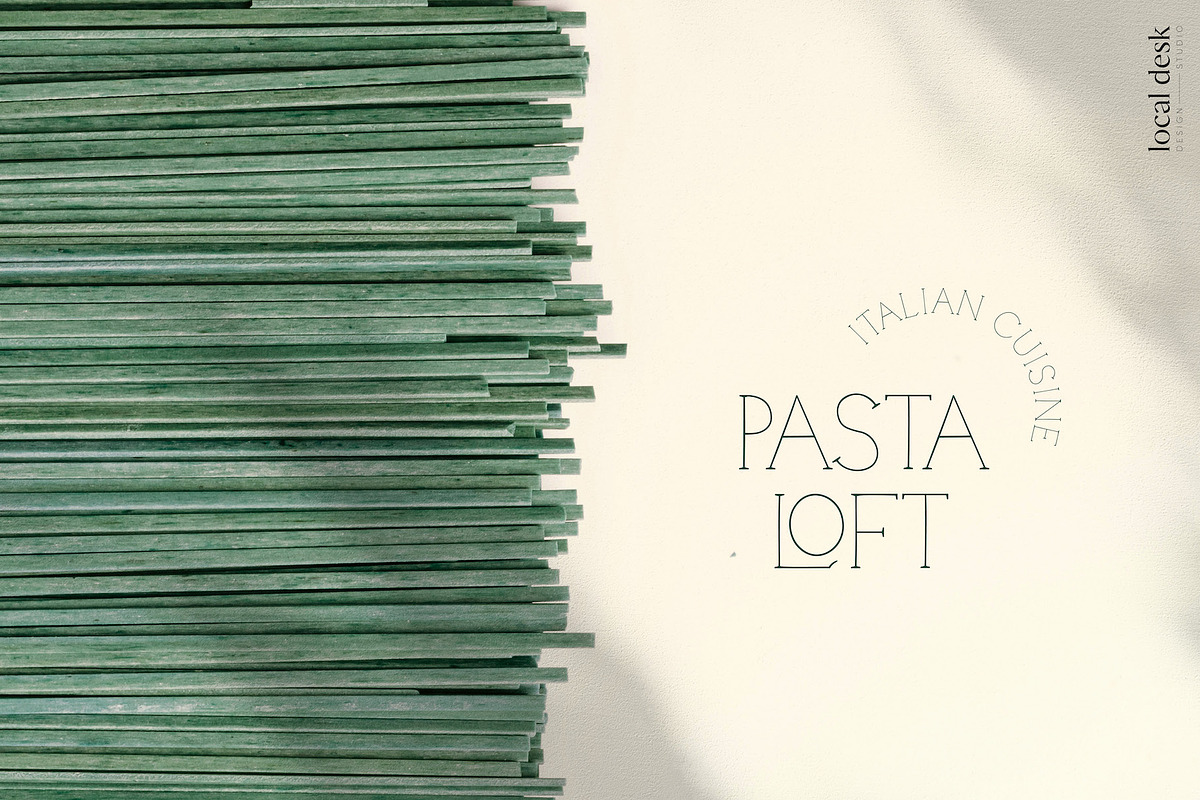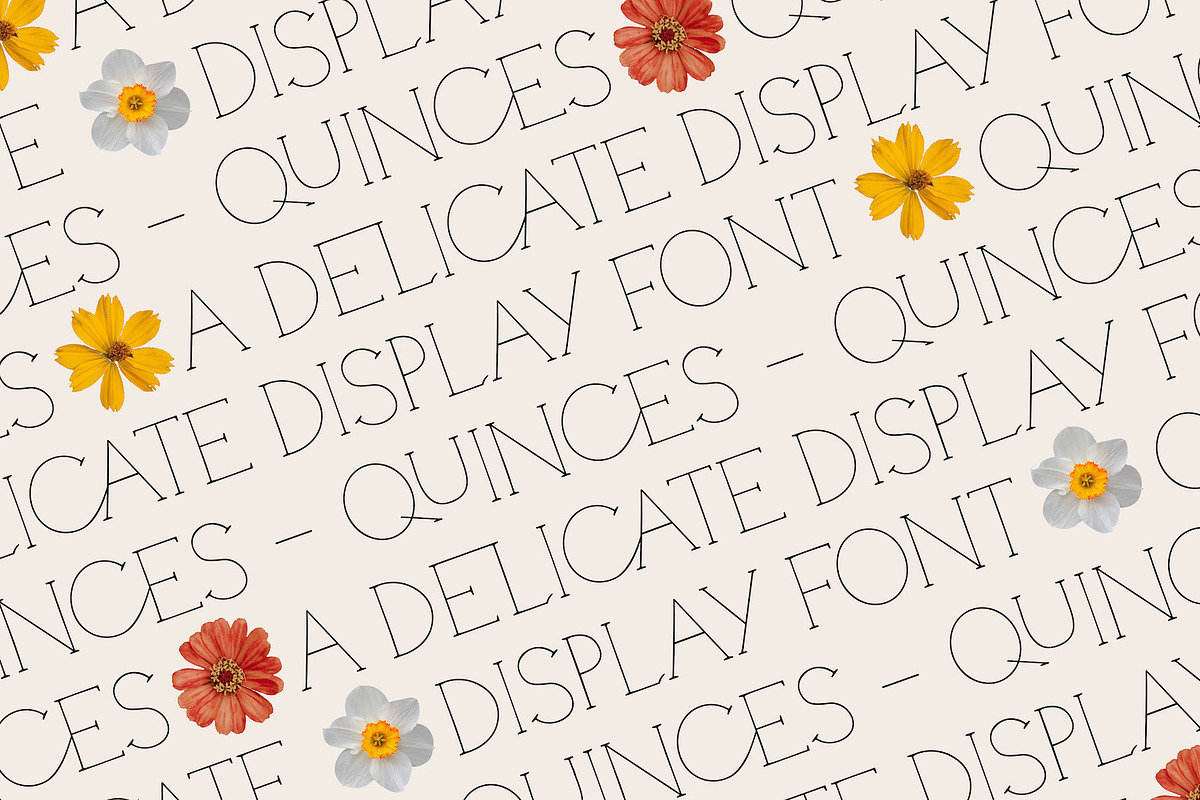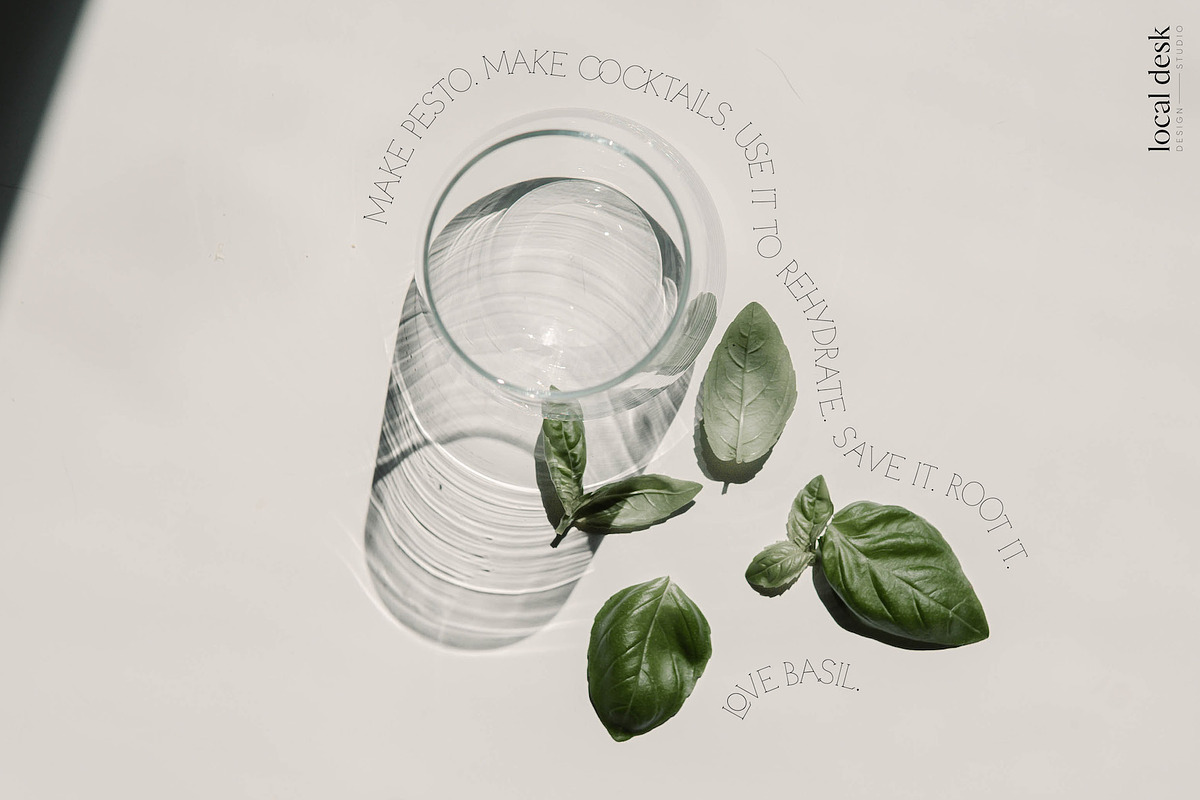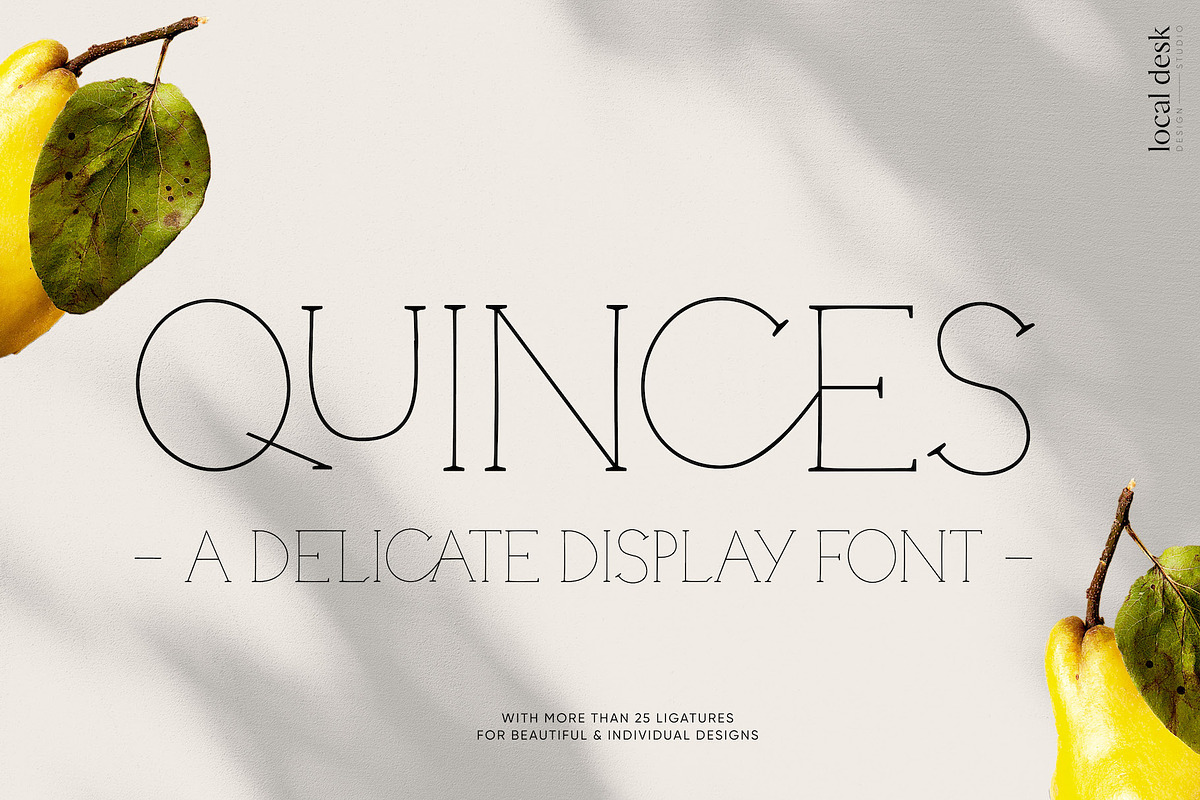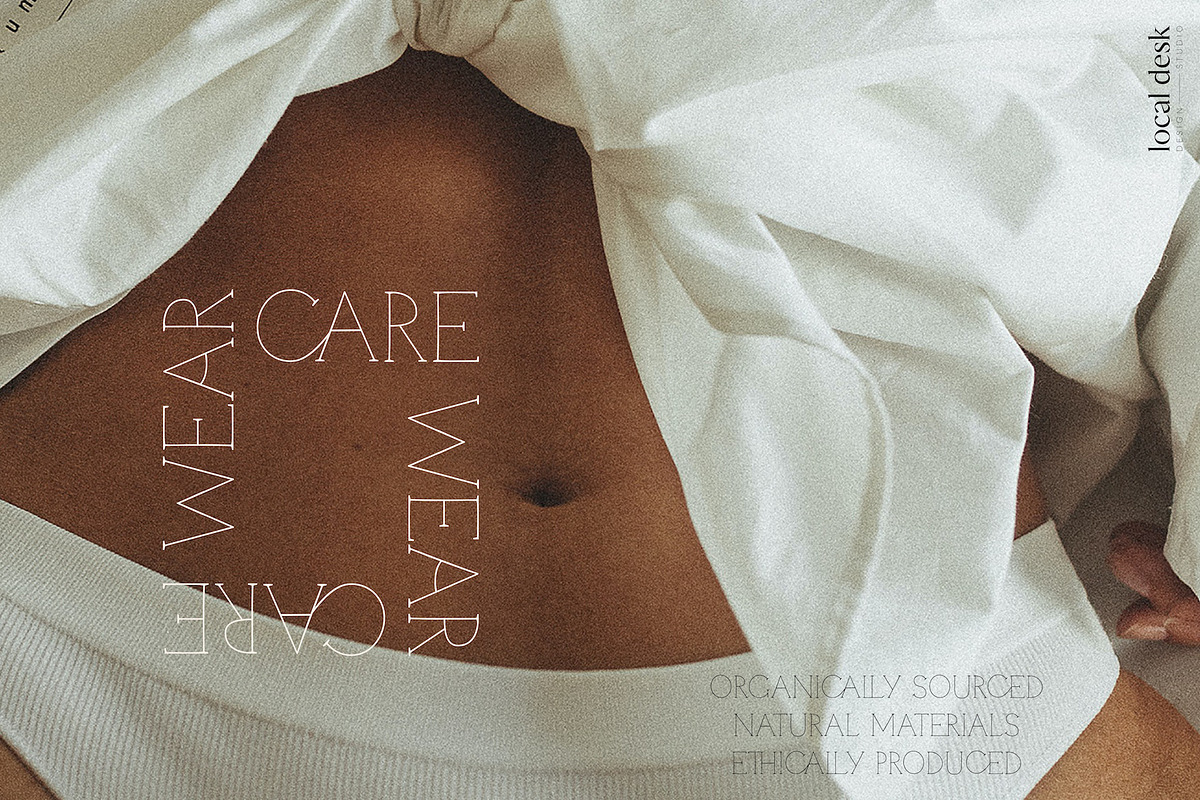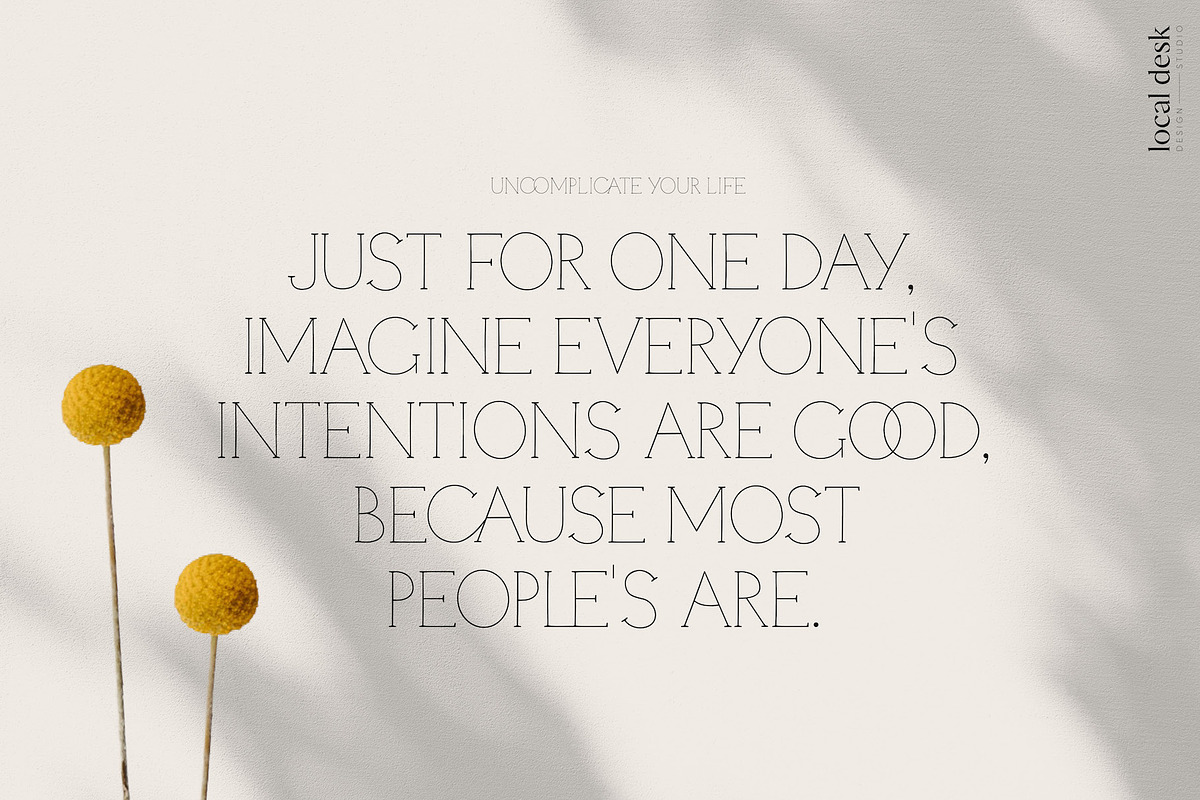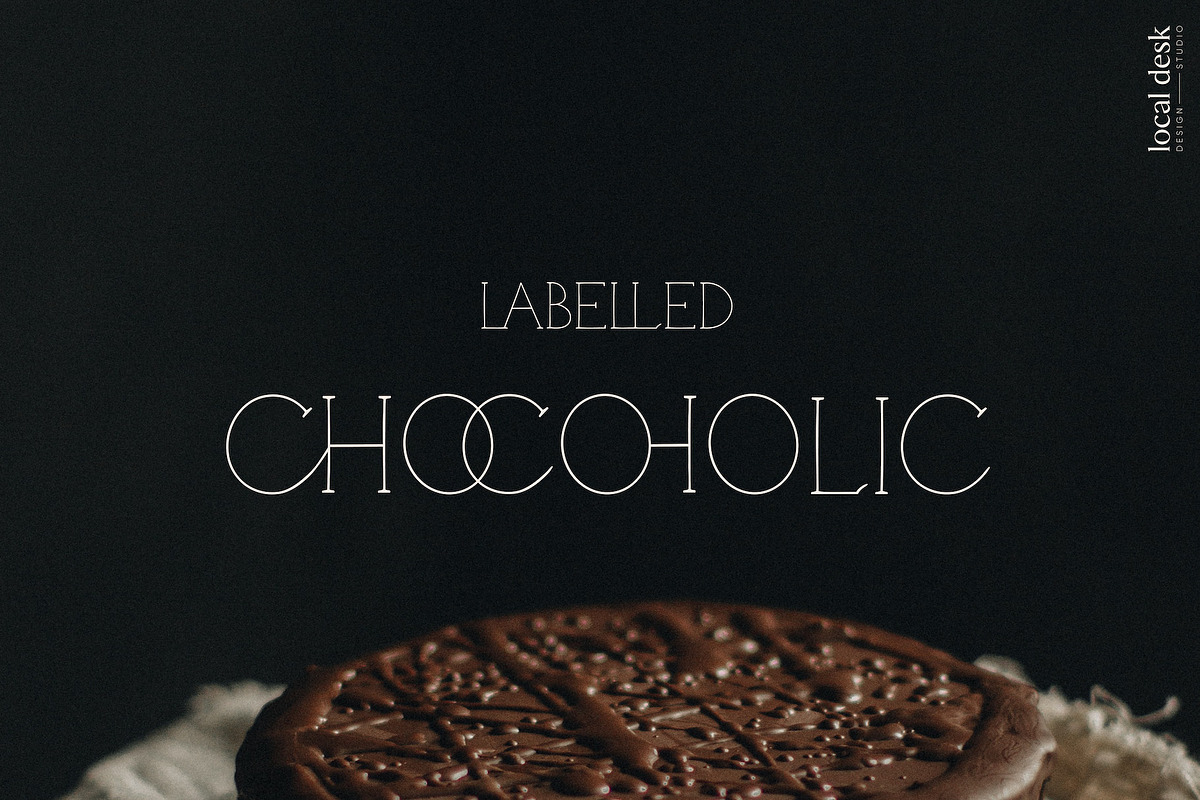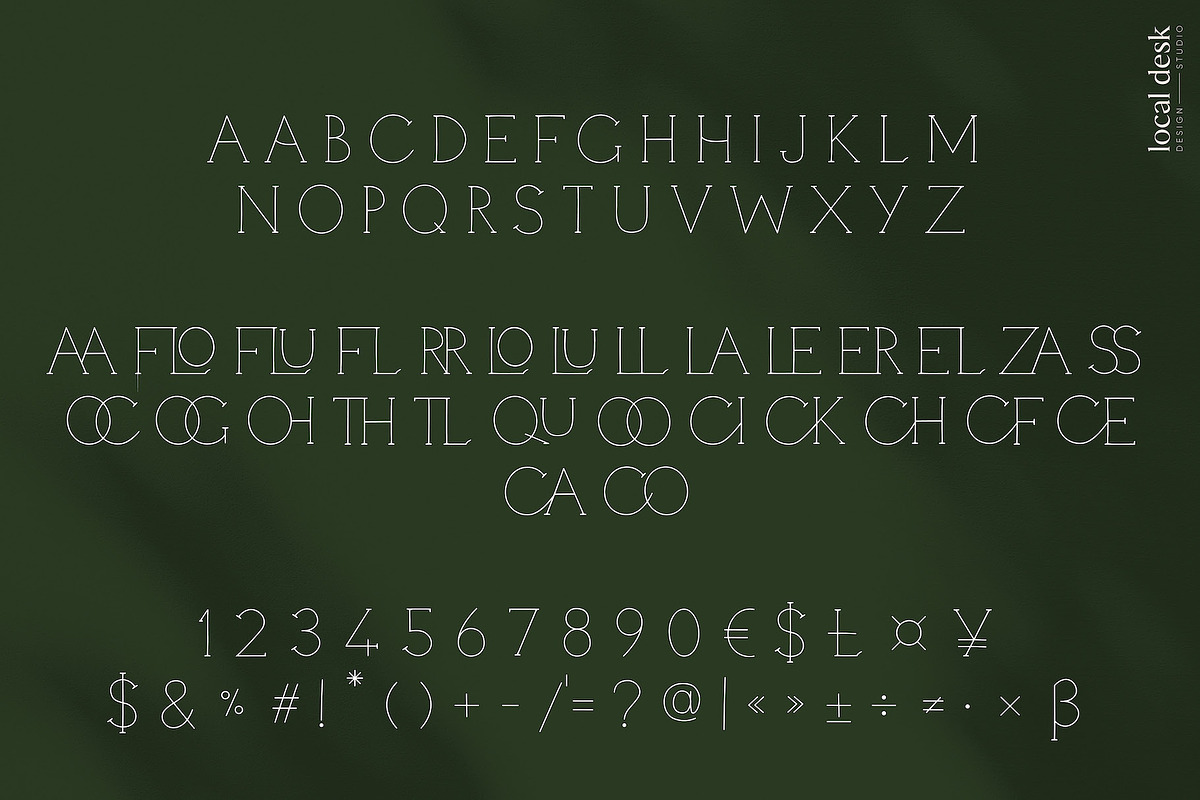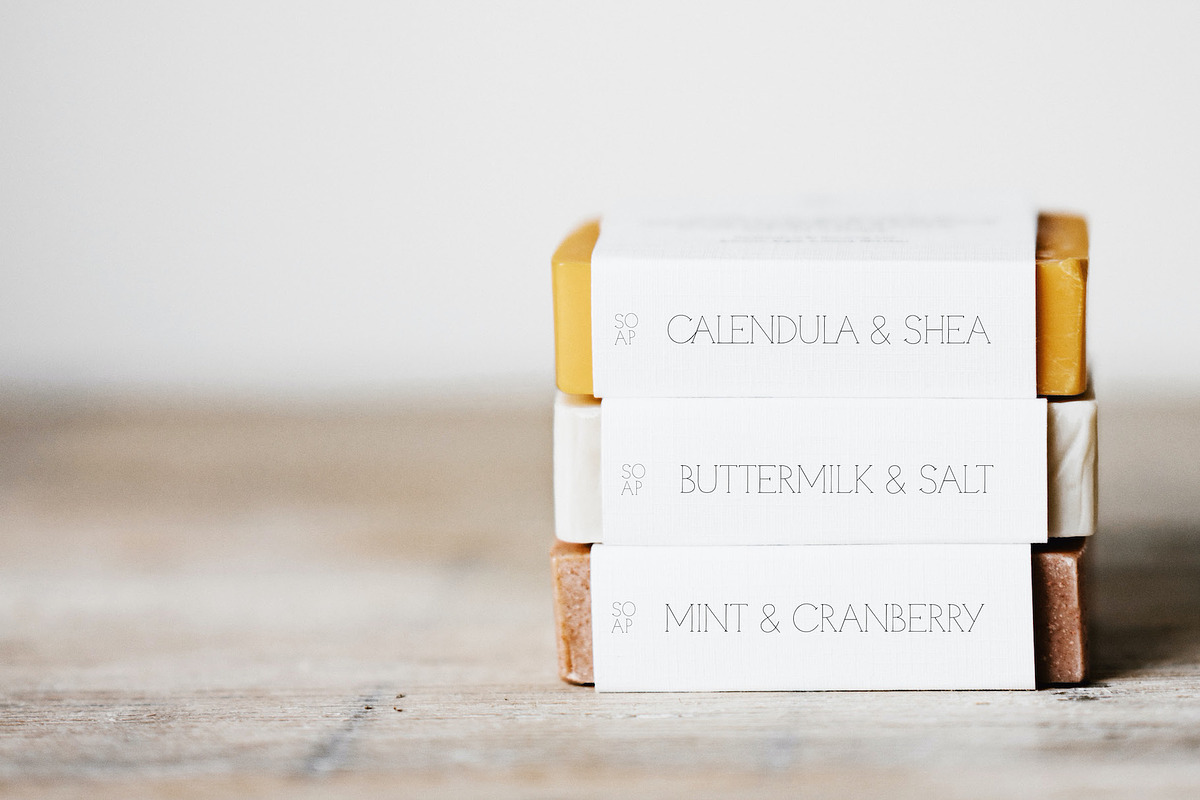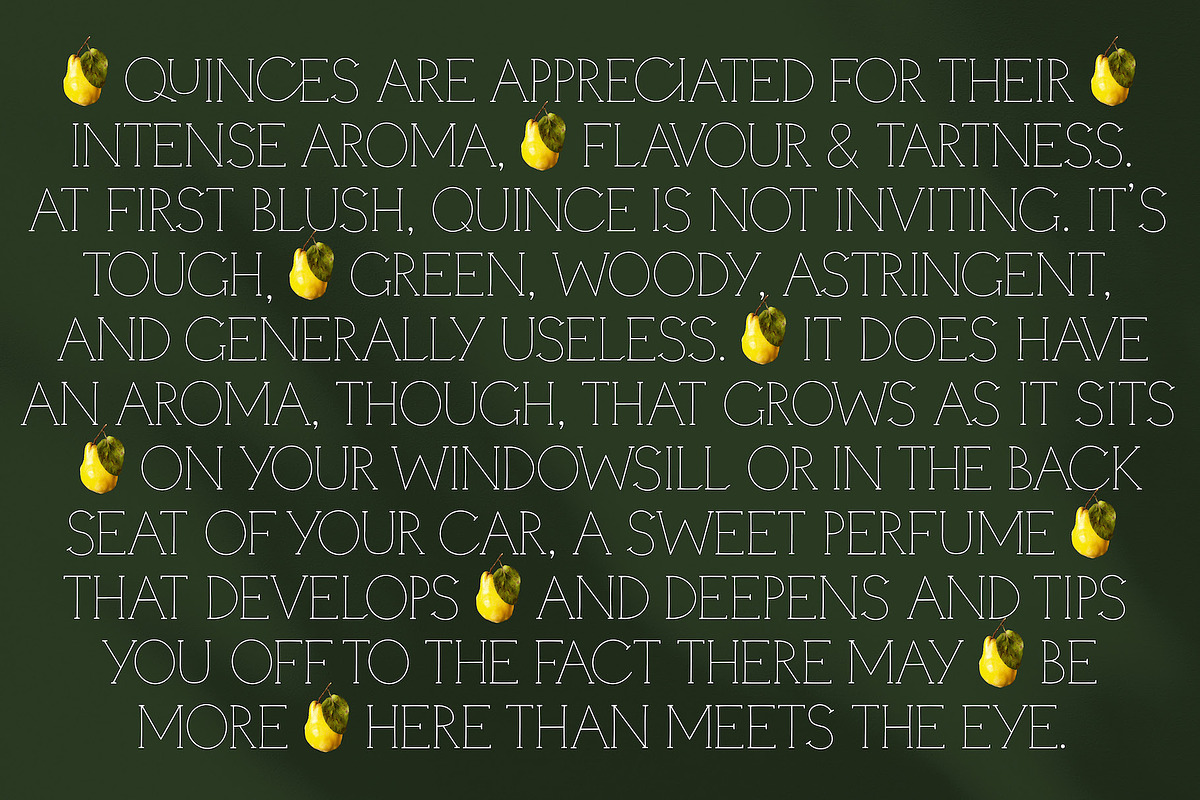
Quinces – A Delicate Display Serif
Quinces is a delicate hand-drawn serif typeface that is perfectly suited for designing unique logos & beautiful brands, fine wedding invitations, eloquent quotes, website headers, social media posts, and more!
This font includes over 25 ligatures to make everything you design look totally unique and special – your next design project will come together effortlessly.
Quinces is perfect for: elegant branding, fine wedding stationery, unique cover designs, expressive headings, delicate packaging, meaningful quotes, greeting cards, unique social media posts, and so much more.
- Uppercase Letters
- Numbers + Punctuation
- Non-English support
- 25+ Ligatures (all ligatures and special characters can be accessed via the glyphs panel)